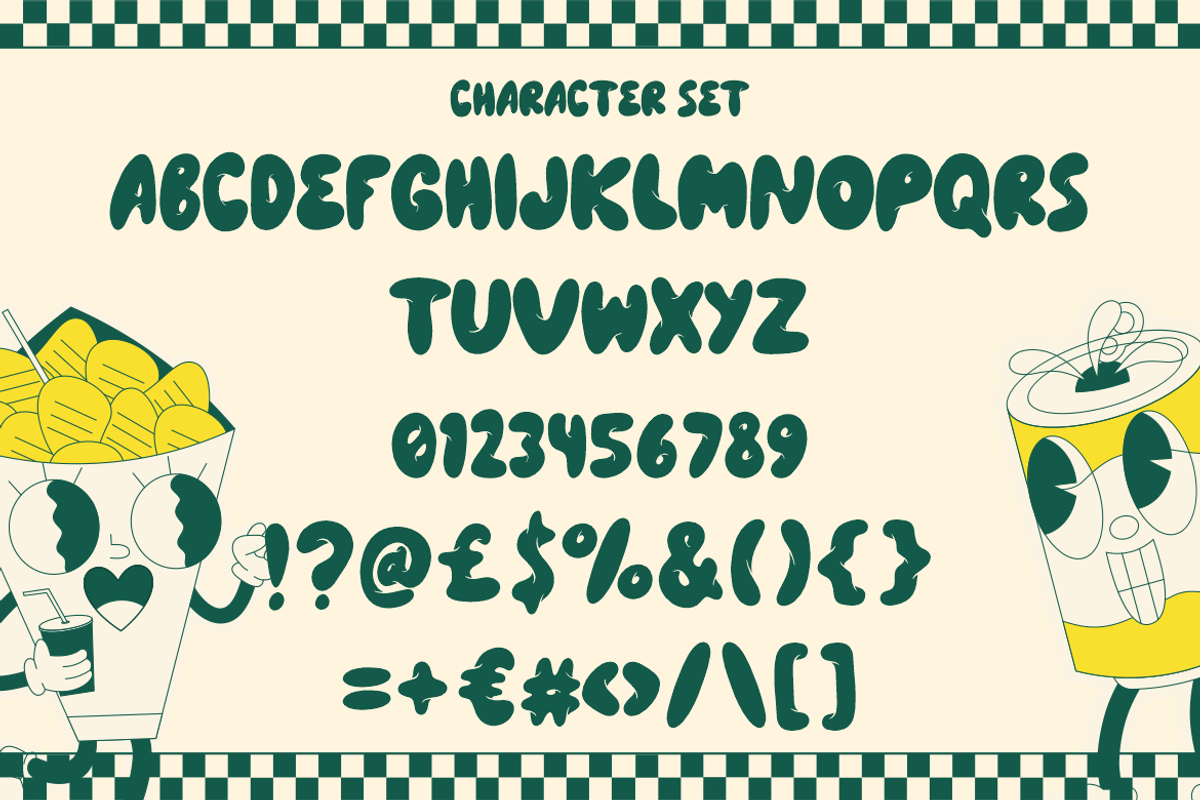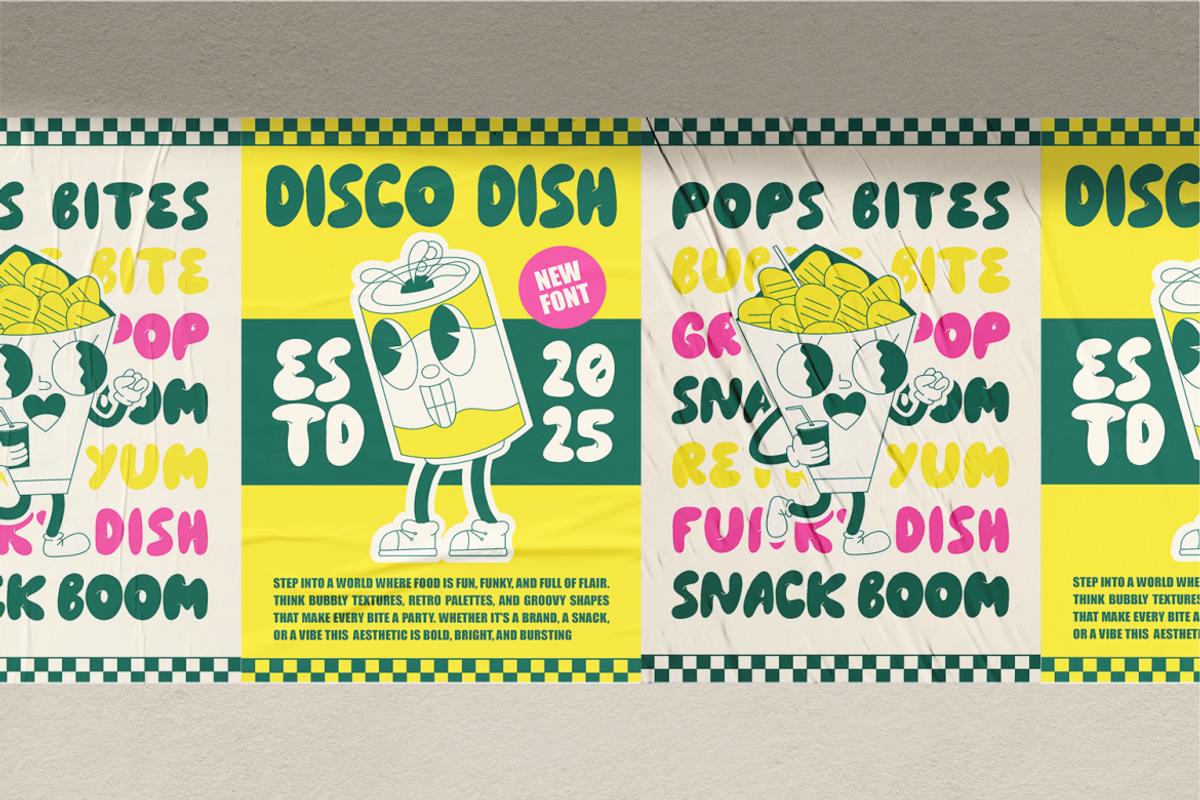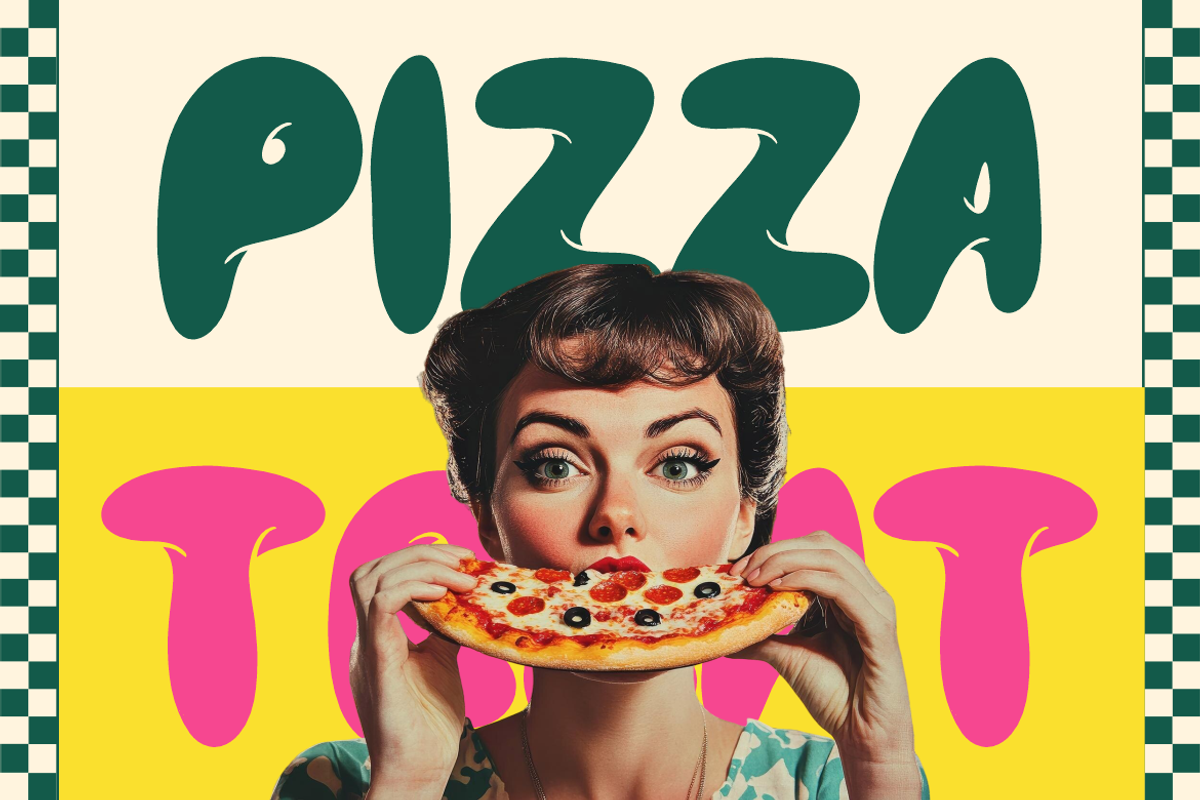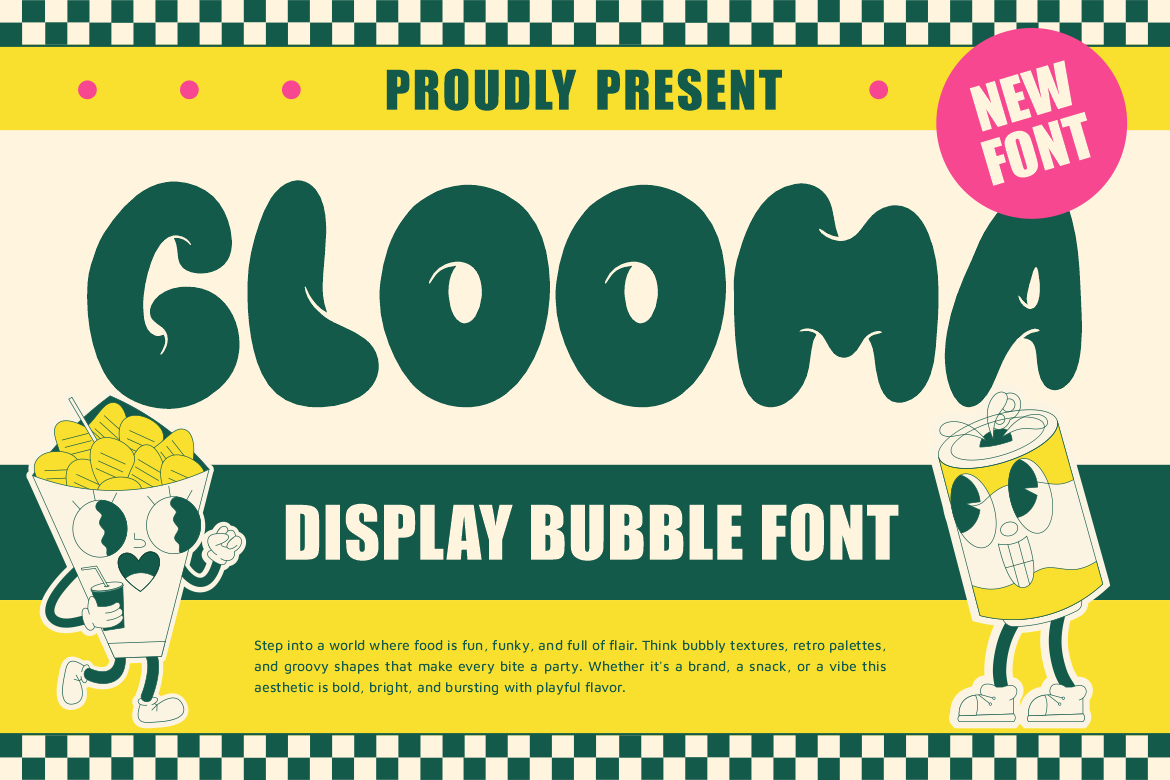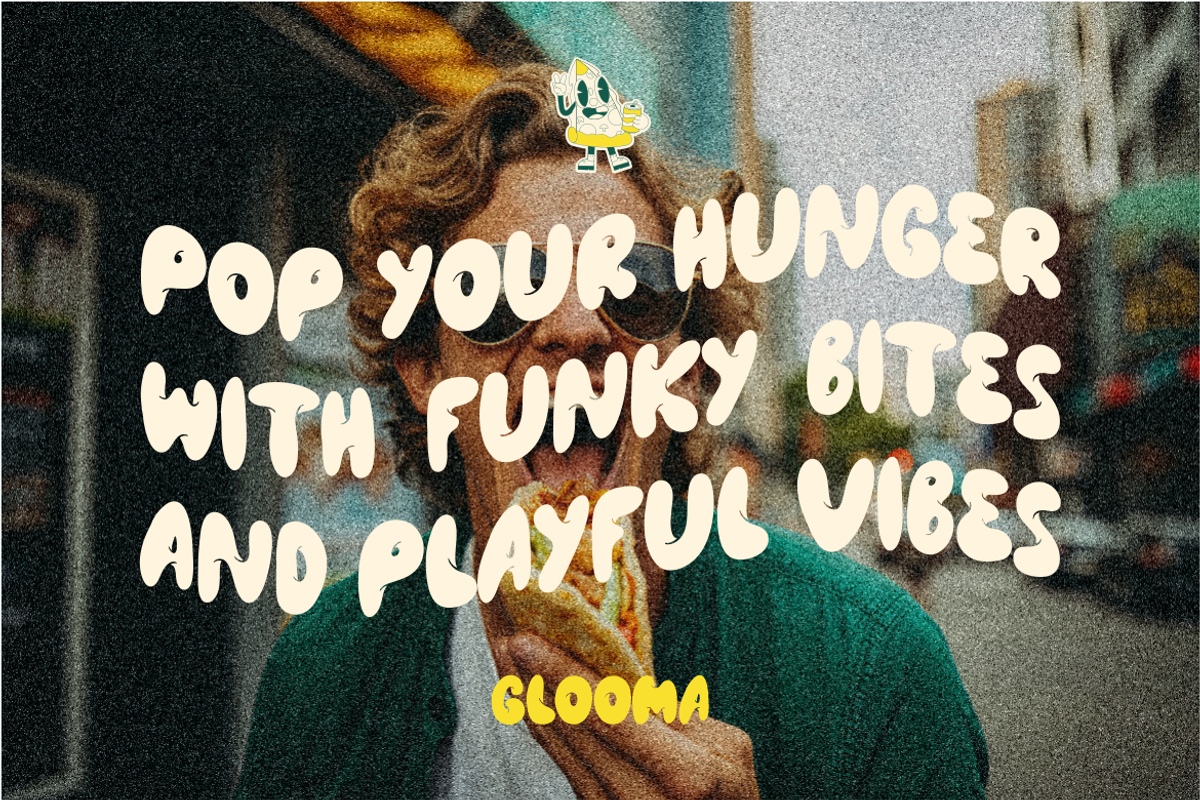
Glooma Display Bubble Font
Glooma Display Bubble Font brings a playful burst of energy to your creative projects. Its bubbly, rounded shapes combine retro grooves with modern boldness, making every word feel fun and full of character. Inspired by pop culture, food packaging, and groovy aesthetics, this font instantly grabs attention while keeping a lighthearted mood. The smooth curves and chunky strokes make it highly readable, even at larger sizes, ideal for catchy headlines, bold posters, or funky product packaging. Its cheerful look turns ordinary designs into joyful statements that radiate personality.
Perfect for snack branding, event posters, or lifestyle projects, Glooma Display Bubble Font adapts to any playful context. Its retro-inspired style fits perfectly with vibrant color palettes and vintage layouts, creating designs that are both nostalgic and modern. Use it for logos, stickers, invitations, book covers, or social media graphics to achieve an eye-catching, fun vibe. With its bold aesthetic and versatile mood, this font is ready to elevate food brands, entertainment projects, and creative businesses that thrive on visual impact.